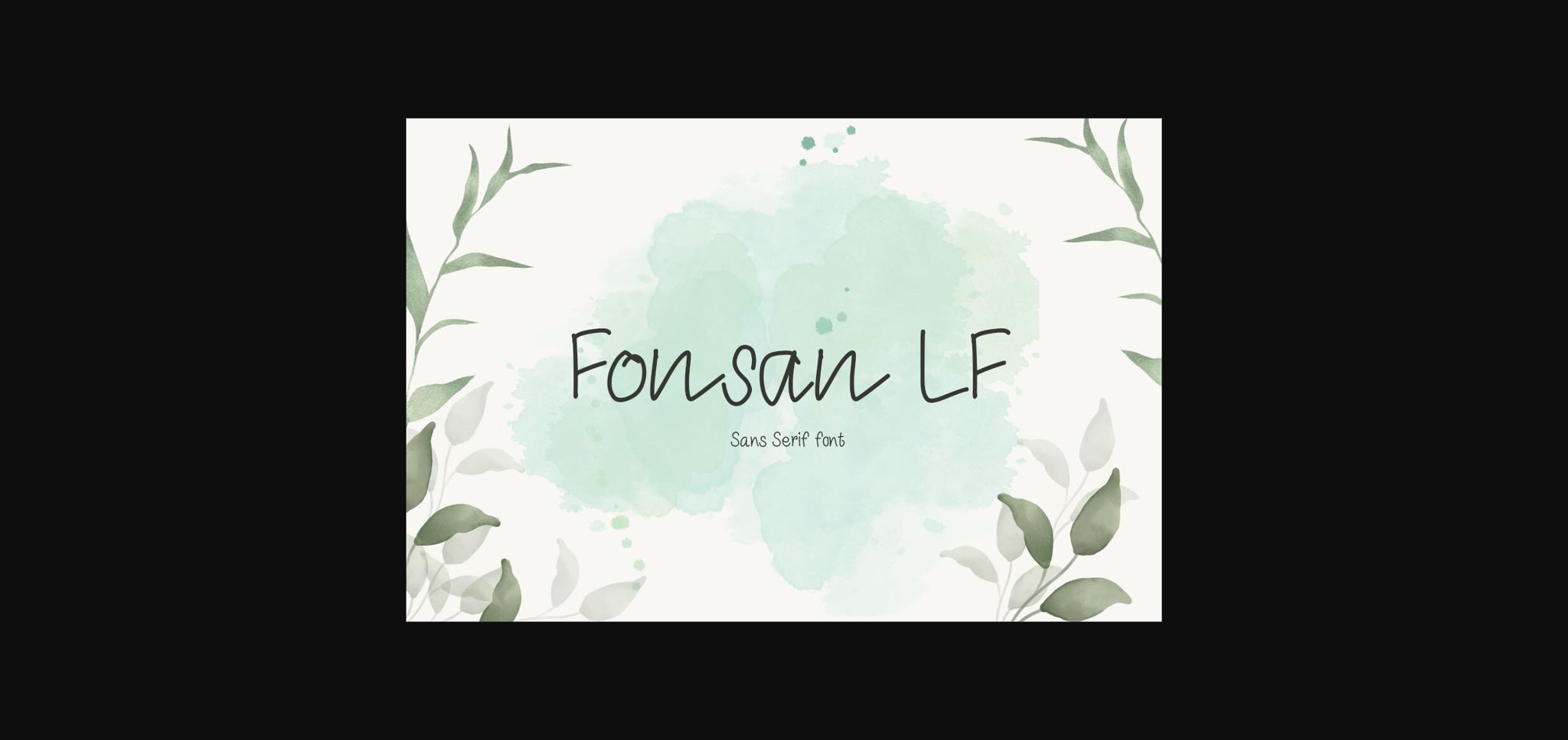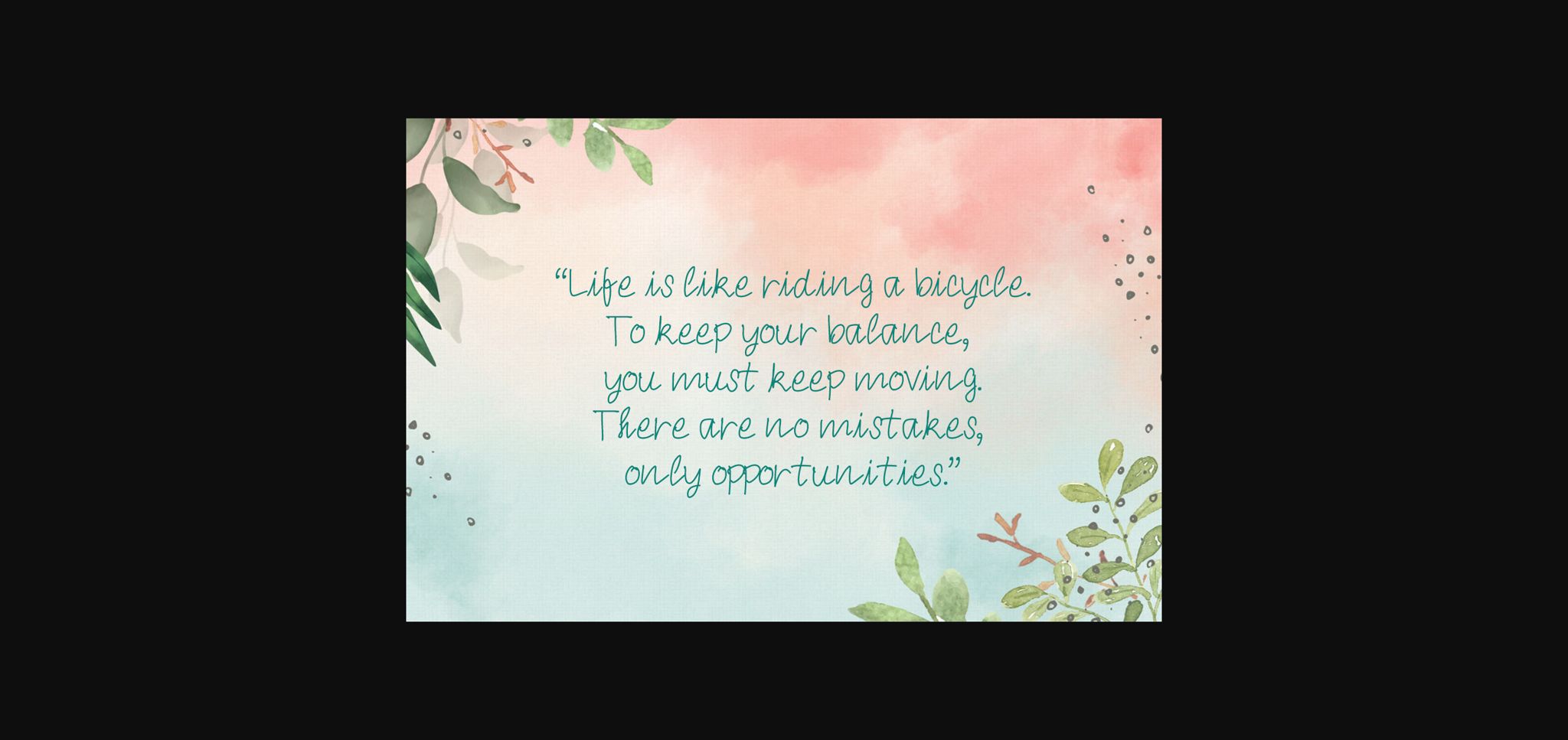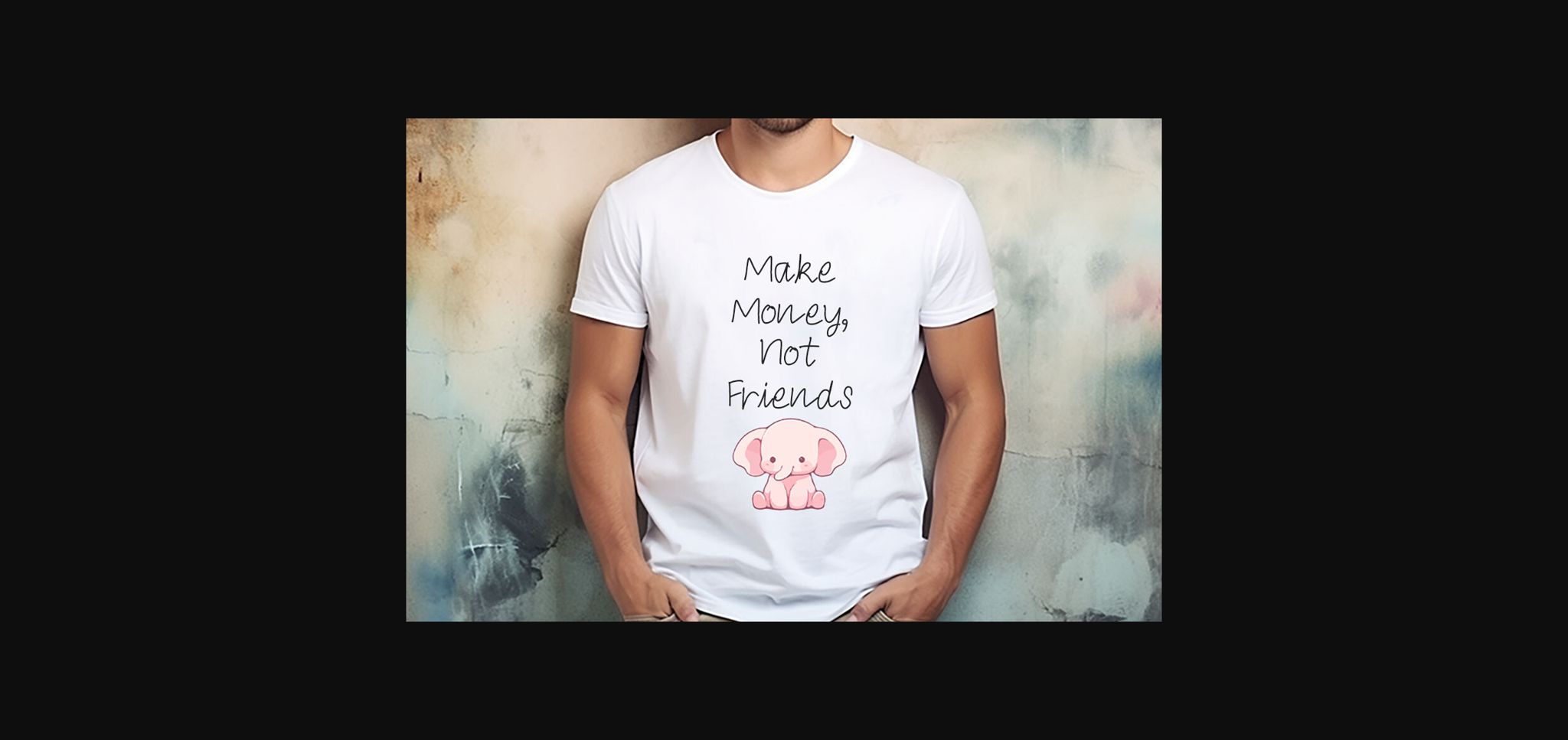
About Fonsan Lf Font
Fonsan LF is a cute, playful, and fun handwritten font. Its informal style and casual vibe will make this font a go-to. It would be awesome for your fun projects or diary planner, wedding invitations, thank you cards, quotes, greeting cards, logos, posters, blogs, bags, T-shirts, clothing, and other designs. choice for each of the creations that require a relaxed touch.